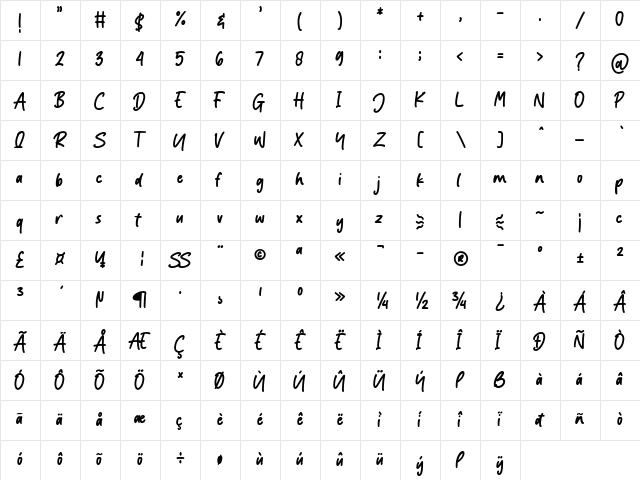
VanillaBacked Regular
| Designer | Muhamad Fikry Nuralif |
Design Context for VanillaBacked Typeface
VanillaBacked is a composed and adaptable typeface that performs quietly and consistently across a wide range of design contexts.